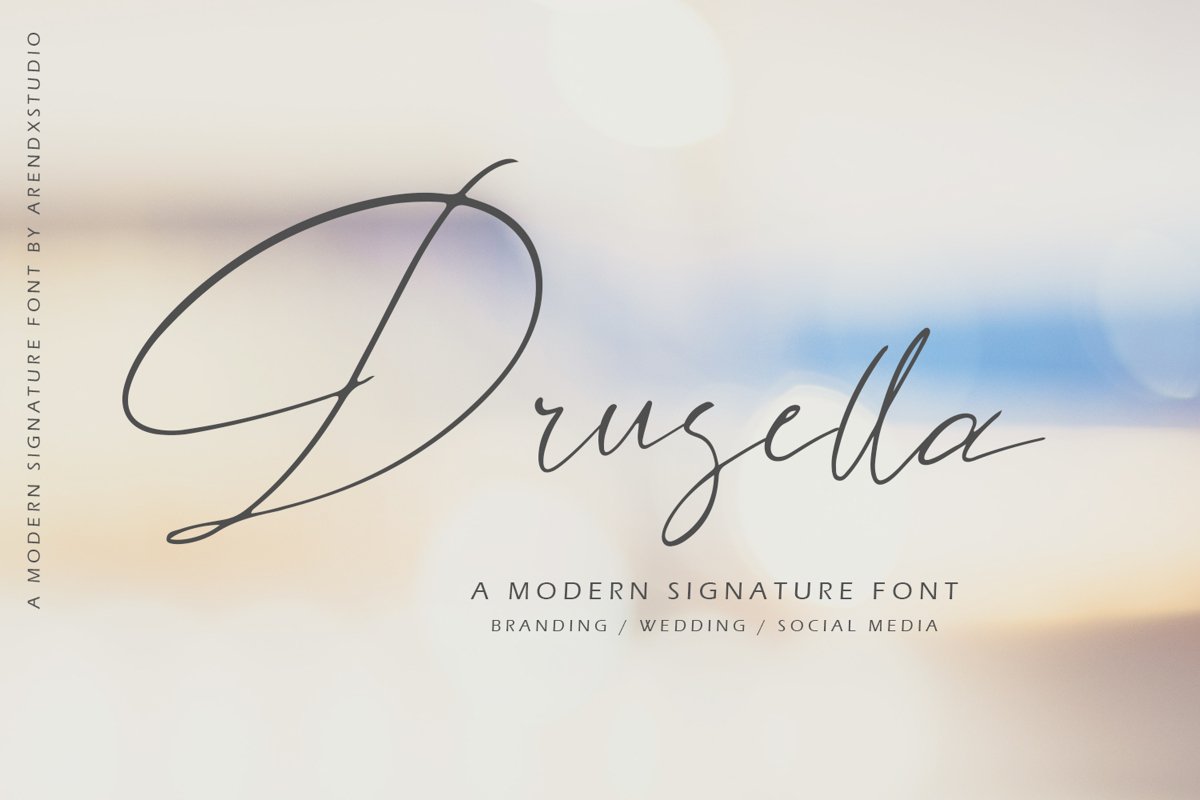
Drusella Modern Calligraphy
Drusella
introducing Drusella Modern Calligraphy, using style hand made with brushing. Drusella a beautiful for wedding card design, logotype, website header, fashion design and any more.
• Character Set A-Z
• Numerals & Punctuations (OpenType Standard)
• Accents (Multilingual characters)
• Swash